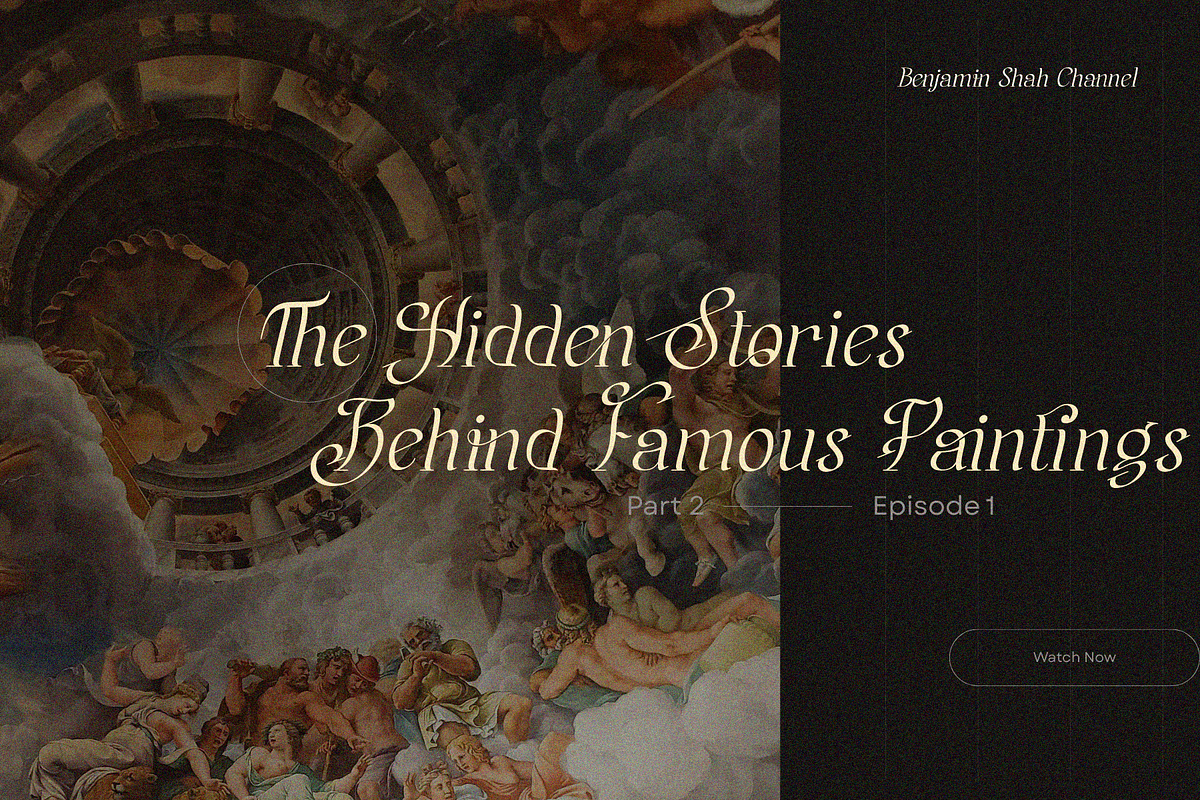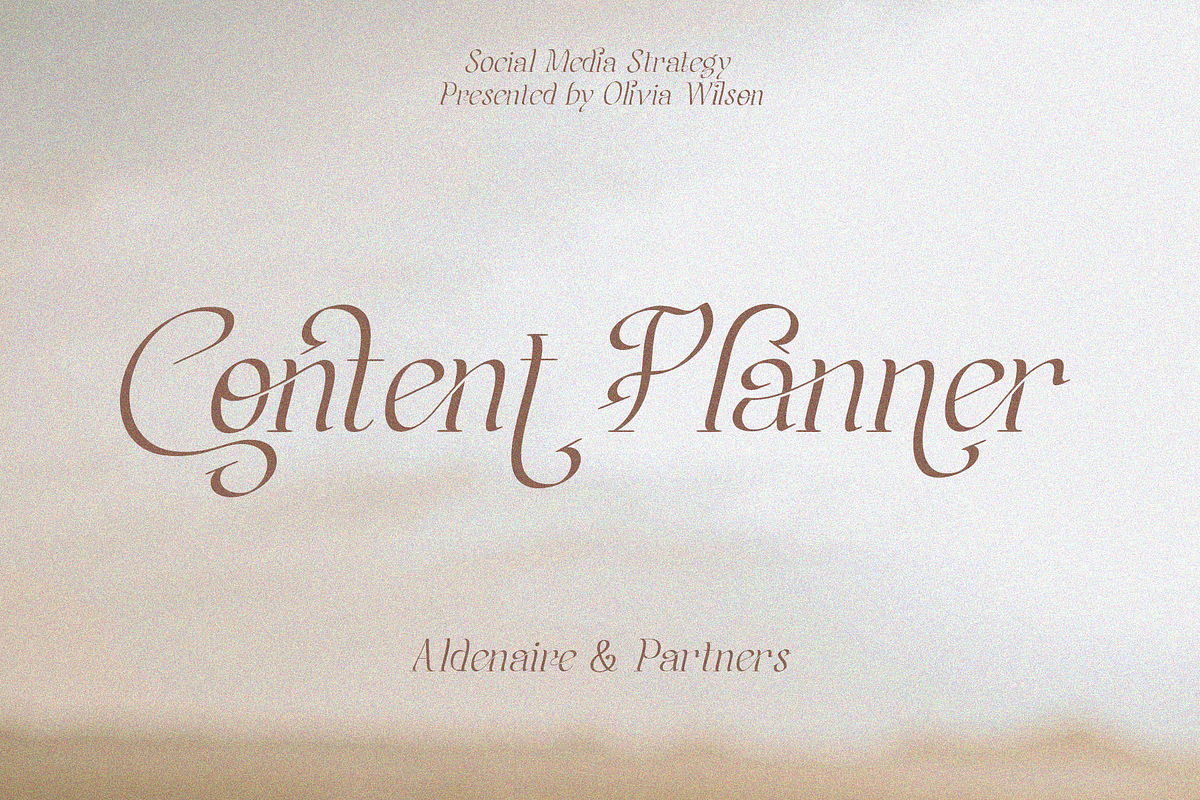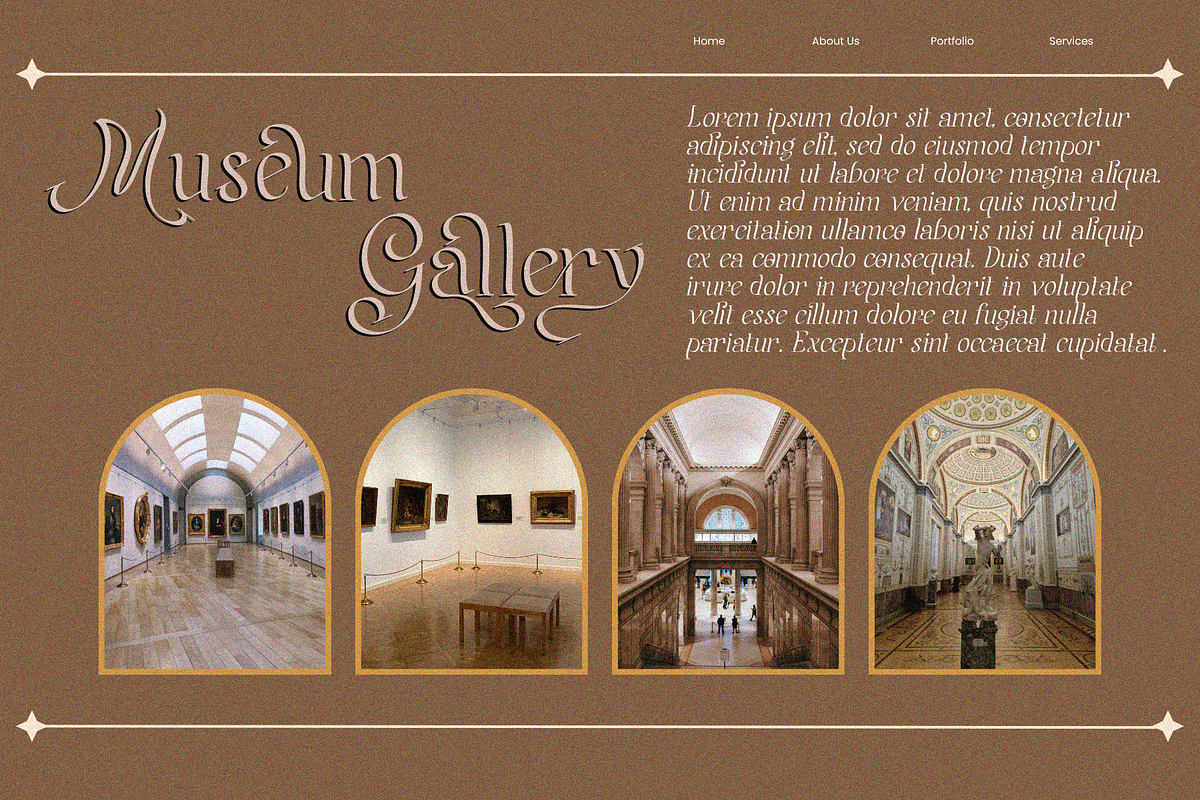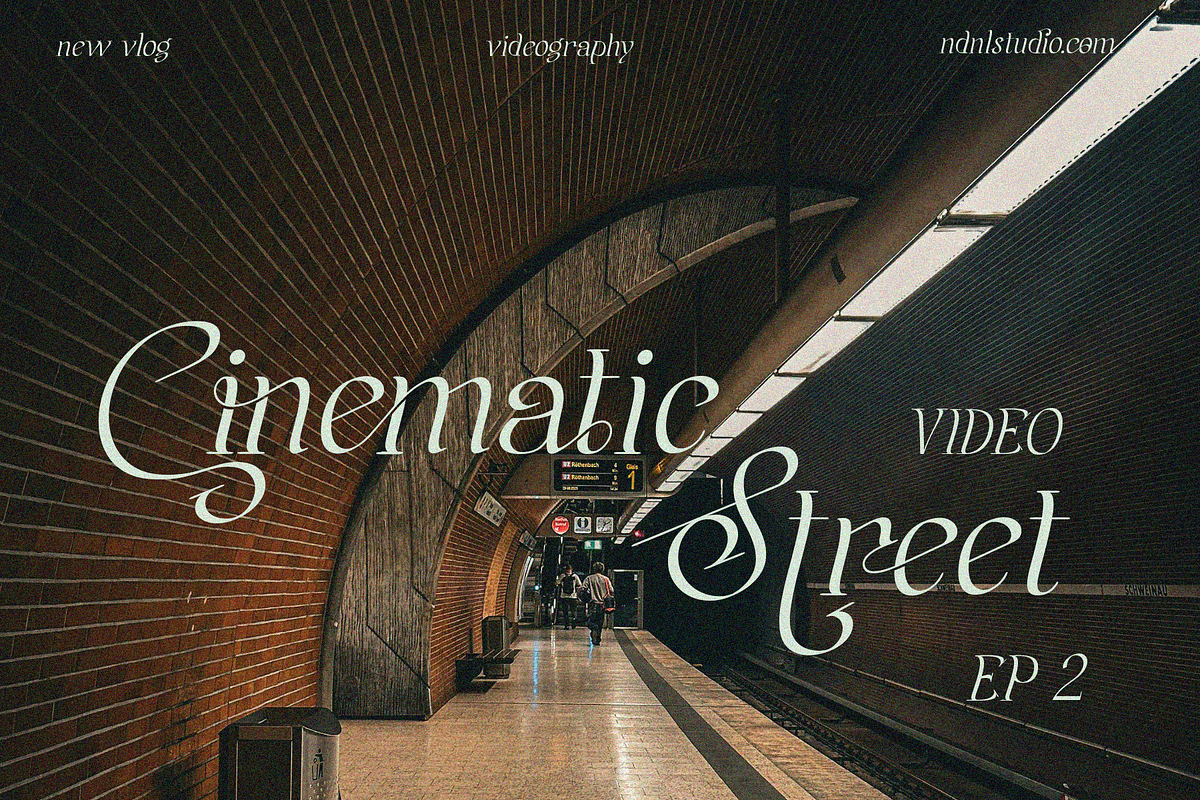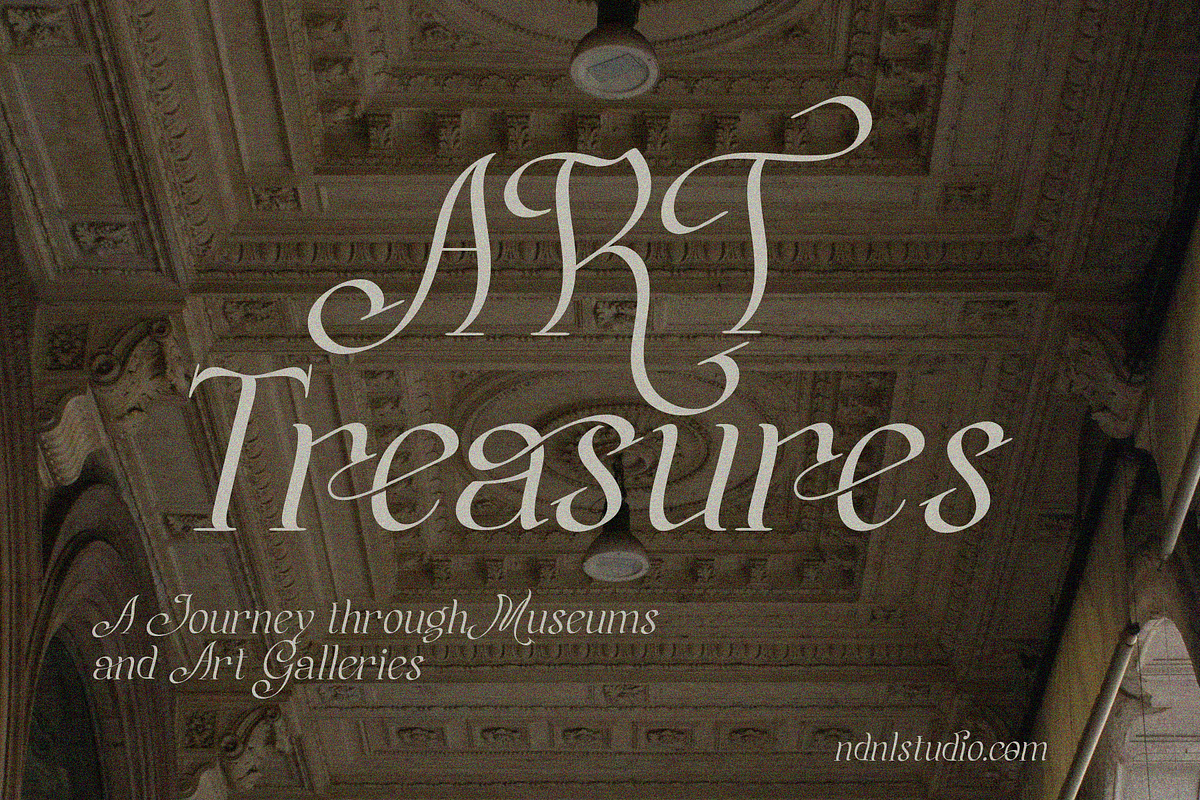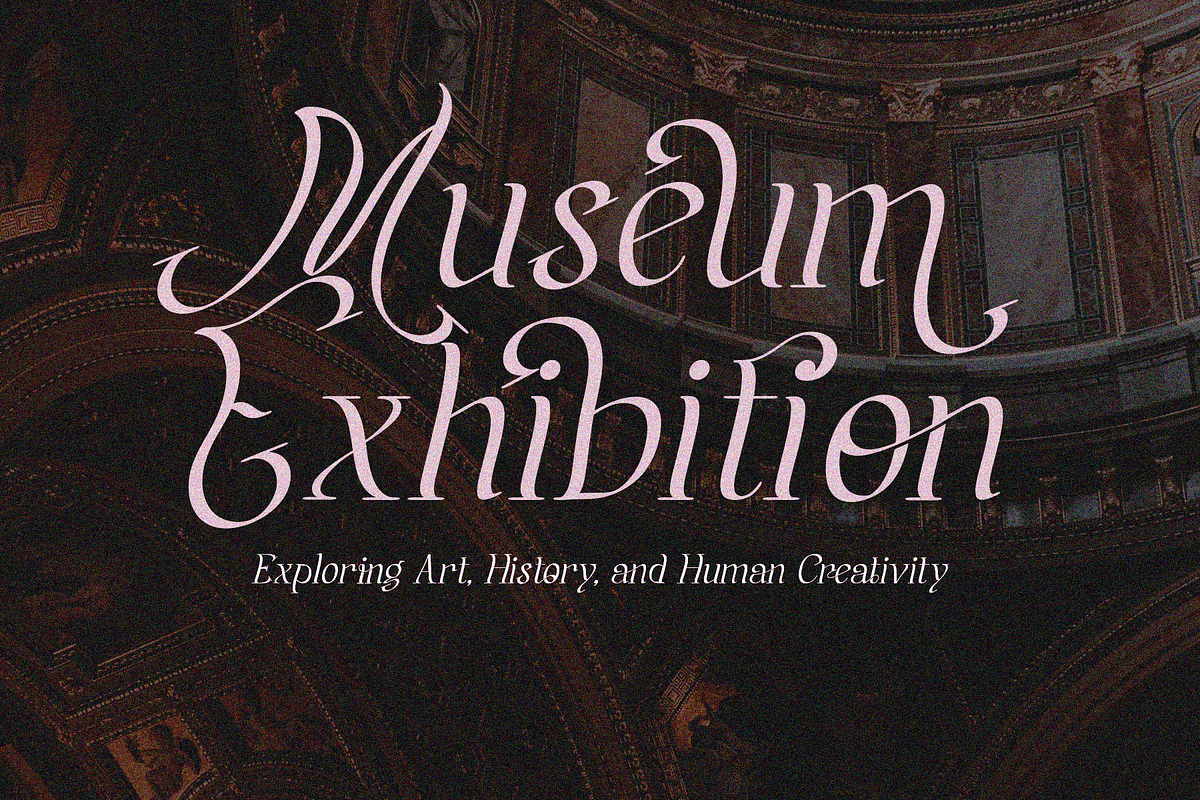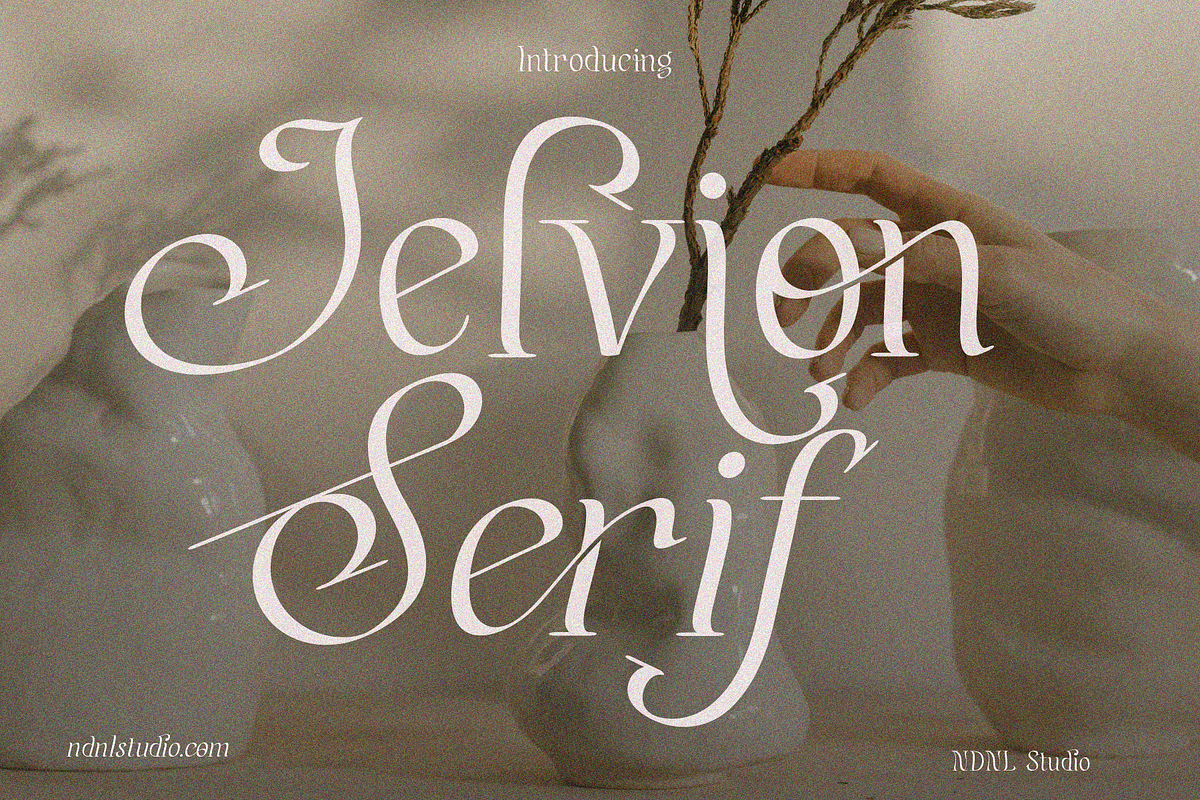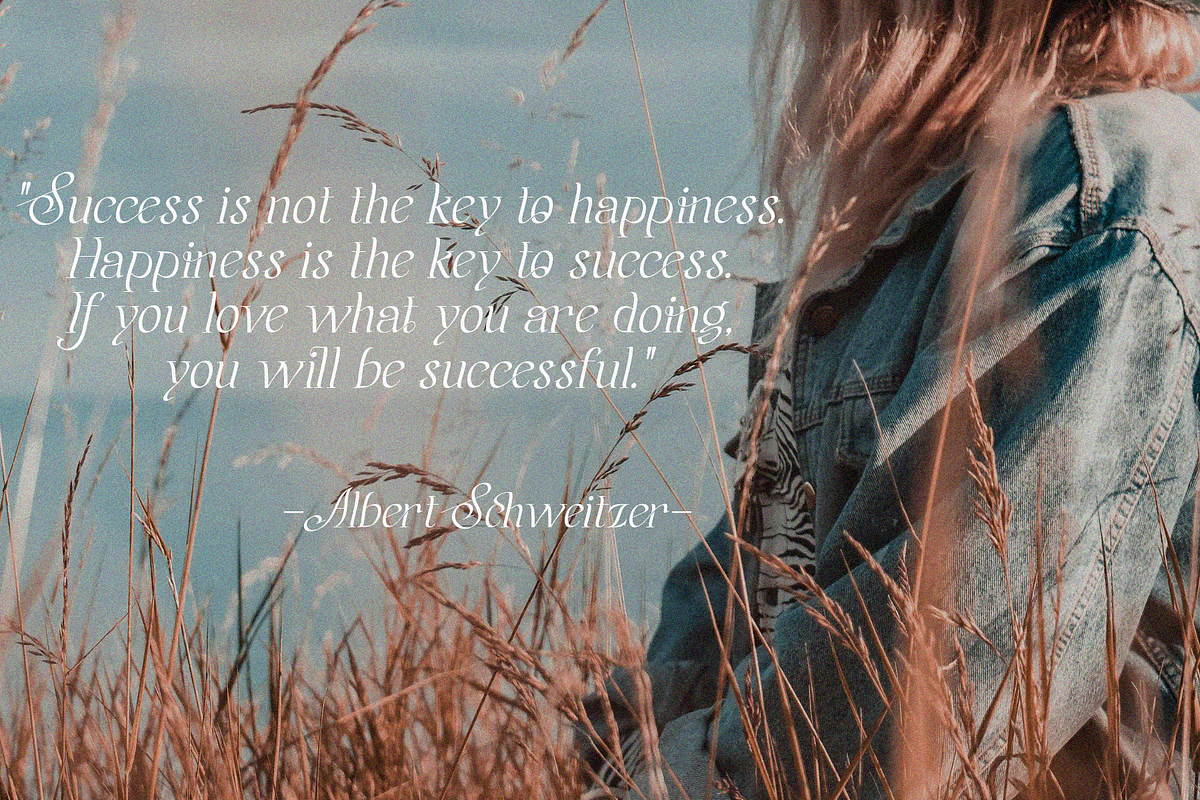
Jelvion – Serif Font
Jelvion is a decorative serif typeface that embodies classic elegance and artistic sophistication. Its graceful curves and refined ornamental details are inspired by traditional European typography, giving each letterform a timeless and luxurious appearance.
Blending classical charm with modern versatility, Jelvion is perfect for high-end design projects such as logos, branding, editorial headlines, artistic posters, product packaging, and luxury visual identities. This typeface adds a refined and distinctive character to any creative composition.